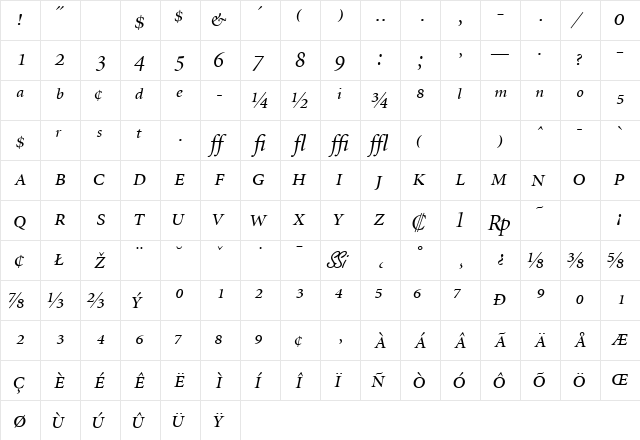
AtlantixProDisplaySSK Italic
Design Context for AtlantixProDisplaySSK Typeface
AtlantixProDisplaySSK brings ornamental detail and strong personality to headlines and identities, where visual impact matters more than quiet functionality. The slanted form adds forward momentum and visual energy.
Font Pairing: Pair with a clean neutral sans-serif for body copy to let AtlantixProDisplaySSK's character lead without overwhelming the composition.
Pro Tip: Treat AtlantixProDisplaySSK as the centrepiece of your typographic hierarchy. One strong heading set in a decorative face can carry an entire layout.